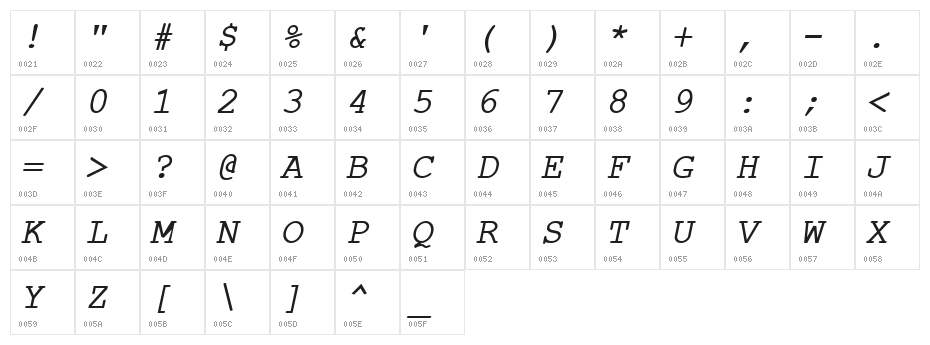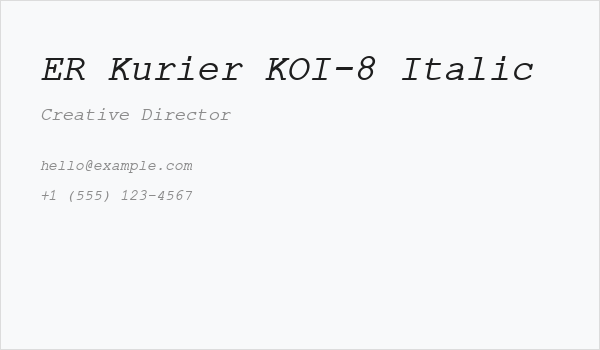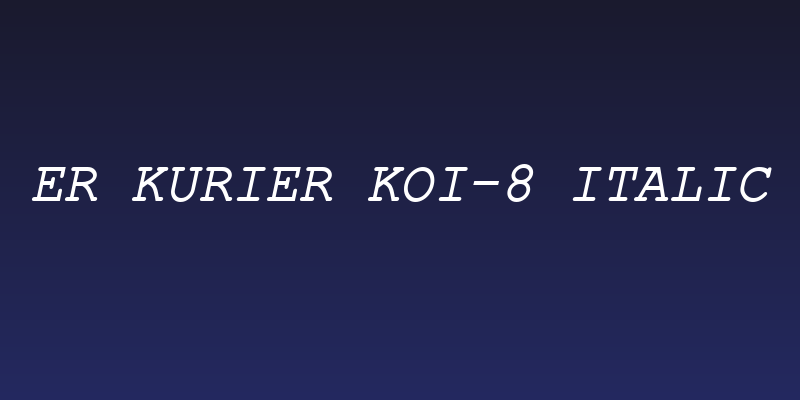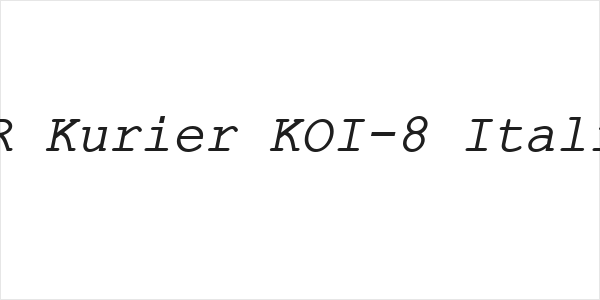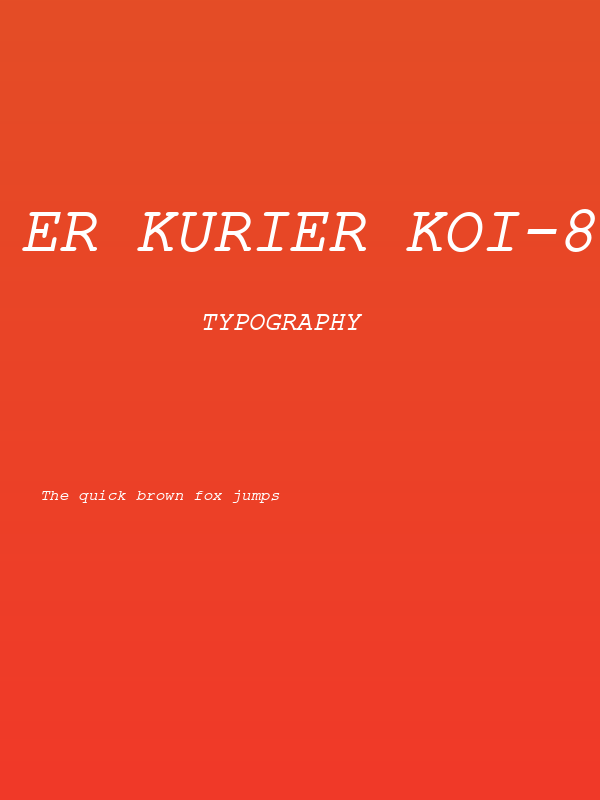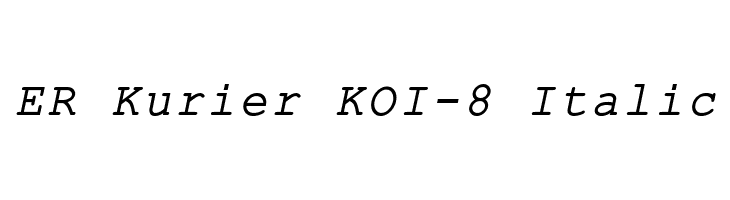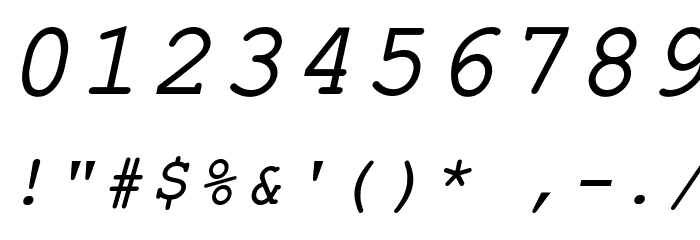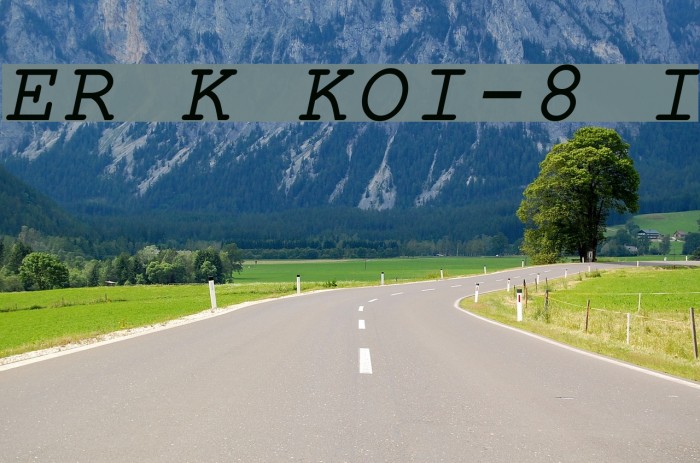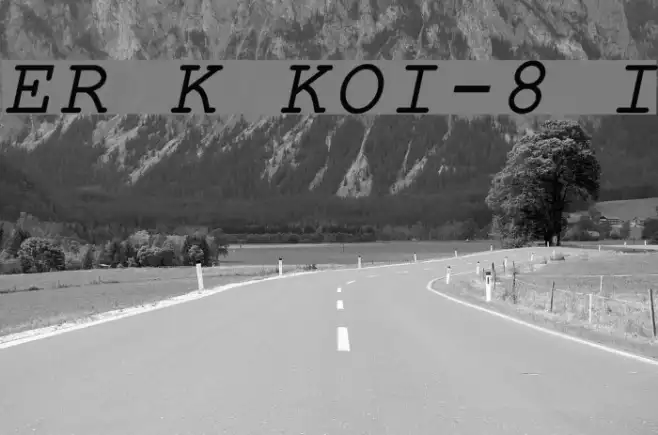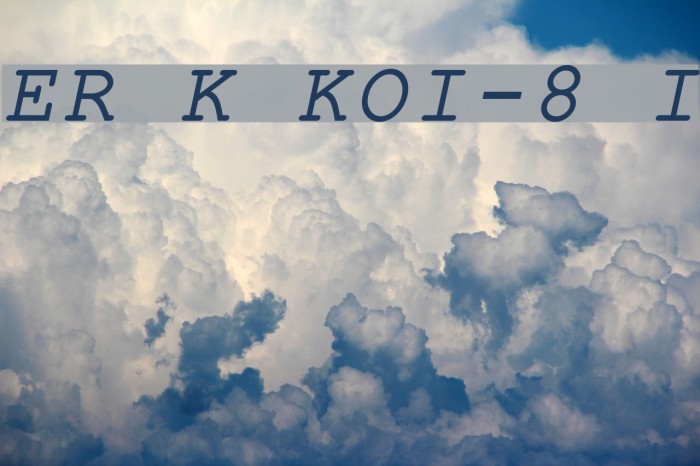
ER Kurier KOI-8 Italic Font
ER Kurier KOI-8 Italic Description
This font features a classic italic style with a slight slant, giving it a dynamic and elegant appearance. The characters are well-proportioned, with a consistent stroke width that maintains readability. The uppercase letters are slightly taller than the lowercase, providing a clear distinction between the two. The numerals are aligned with the uppercase letters, ensuring uniformity across different text elements. Special characters are designed to match the overall style, with smooth curves and clean lines. This font is versatile, suitable for both formal and informal contexts, and its italic nature adds a touch of sophistication.
| Overall Style | Classic |
| Use Case | Headlines, Body text, Logos |
| Proposed Projects | Ideal for projects requiring a touch of elegance, such as invitations, formal documents, or branding materials. |